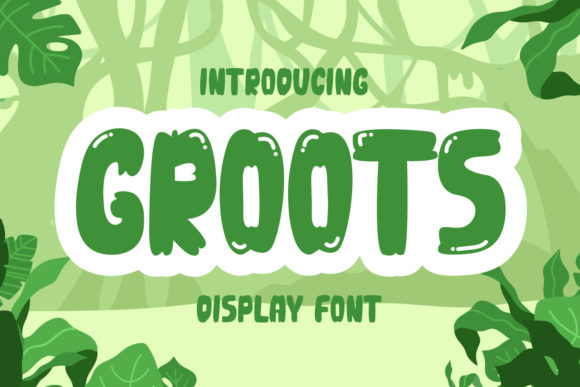
In a world saturated with mundane fonts, Groots Font emerges as a beacon of uniqueness, a typographic masterpiece that captivates the senses and ignites the imagination. This extraordinary display font, crafted by the visionary OKEVECTOR, transcends the boundaries of ordinary, ushering in a new era of visual expression.
Designed to evoke sheer delight, Groots Font dances across the digital canvas with its thick, bubbly letters, reminiscent of carefree childhood laughter. Its playful curves and energetic strokes infuse every design with a sense of whimsy and authenticity, making it the perfect companion for children's activities and school projects.
With Groots Font as your creative ally, transform ordinary text into captivating headlines that demand attention. Create vibrant posters that burst with personality, invitations that spark curiosity, and social media posts that ignite engagement. Unleash your creativity and let Groots Font amplify your message, leaving a lasting impression on your audience.
More than just a font, Groots Font is an artistic journey, a voyage into the realm of imagination and wonder. Its playful spirit and boundless energy inspire endless possibilities, inviting you to explore the uncharted territories of visual storytelling. Embark on this creative adventure and discover the transformative power of Groots Font, where every design becomes a masterpiece.